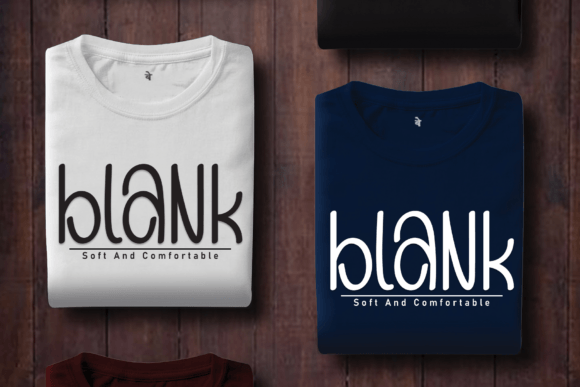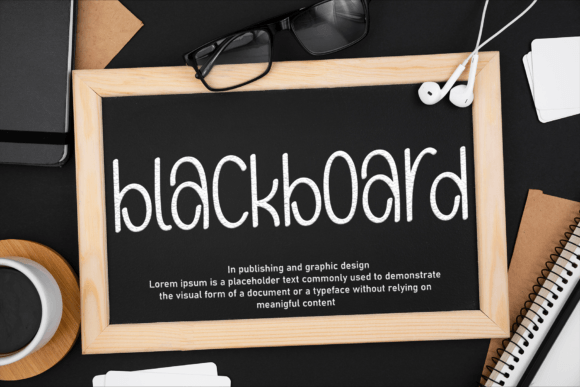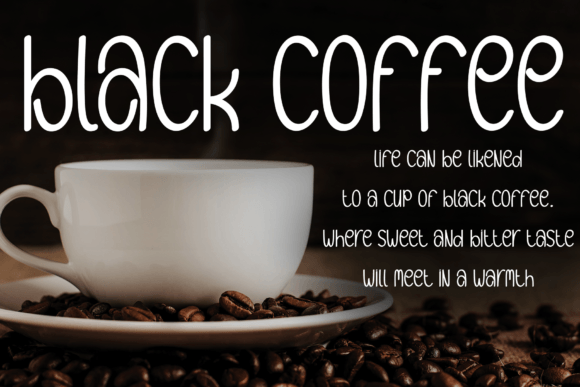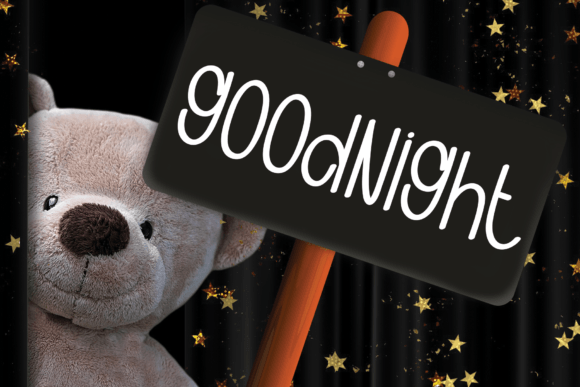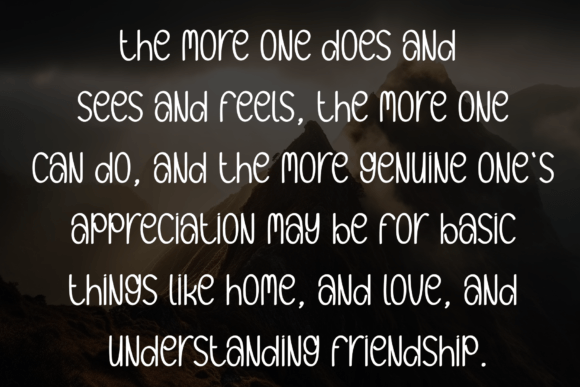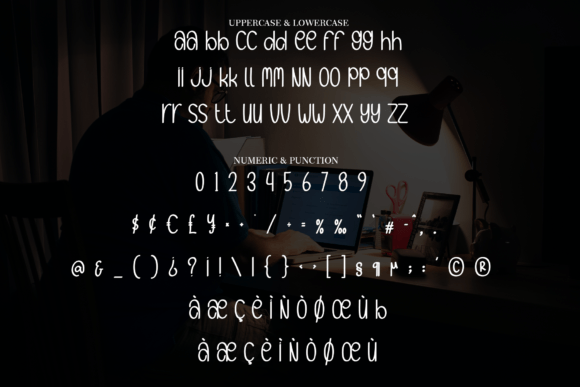
Introduction to Night Shift Font
Have you ever found yourself lost in the creative process, staring at a blank page or screen, waiting for inspiration to strike? For many designers, it’s that moment of clarity when the perfect font finally pops into their mind, setting their project on a path to success. For those seeking a truly enchanting typography solution, look no further than Night Shift Font.
This captivating Script & Handwritten typeface is more than just a design resource – it’s a key to unlocking the mystery and allure of the nighttime. With its flowing strokes and intricate details, Night Shift Font adds an air of elegance and intrigue to your designs, making it the perfect choice for romantic invitations, dreamy branding, and atmospheric headlines.
Key Features of Night Shift Font
- Features a unique, modern design aesthetic that is perfect for a wide range of creative projects.
- Has a medium to large font size, making it suitable for titles, headings, and other prominent text elements.
Honest Review: Night Shift Font
As a designer, I’m always on the lookout for high-quality design resources that can elevate my creative projects. Recently, I stumbled upon the Night Shift Font, and I must say, it’s been a game-changer for my late-night design sessions.
- What works well: ✨ The font is incredibly versatile and can be used for a variety of design projects, from logos to typography. The clean and modern design makes it perfect for creating a cohesive brand identity.
While the Night Shift Font is an excellent addition to any designer’s toolkit, I do have a few limitations to mention.
- ⚠️ Limited character set: The font only includes a limited set of characters, which can be a problem for designers who need to work with languages that require a more extensive character set.
- ⚠️ Not suitable for all projects: The font’s modern design may not be suitable for projects that require a more traditional or classic look.
To get the most out of the Night Shift Font, experiment with different font sizes, colors, and combinations to find the perfect look for your design. You can also use the font in conjunction with other design elements to create a cohesive and visually appealing design.